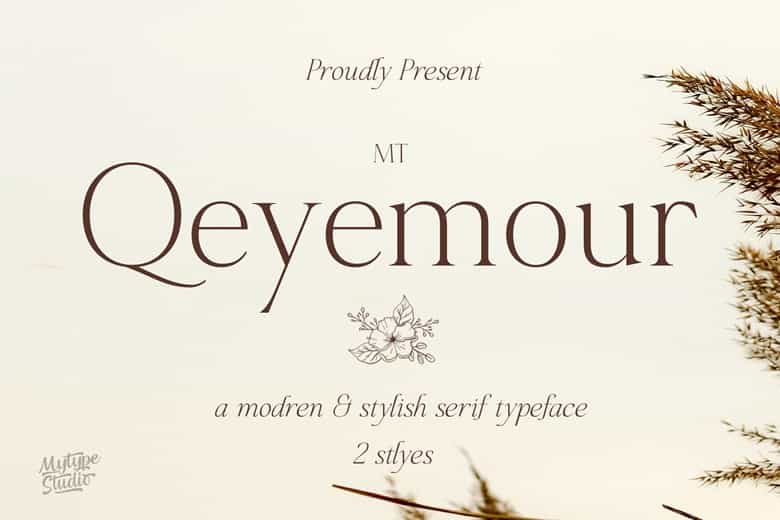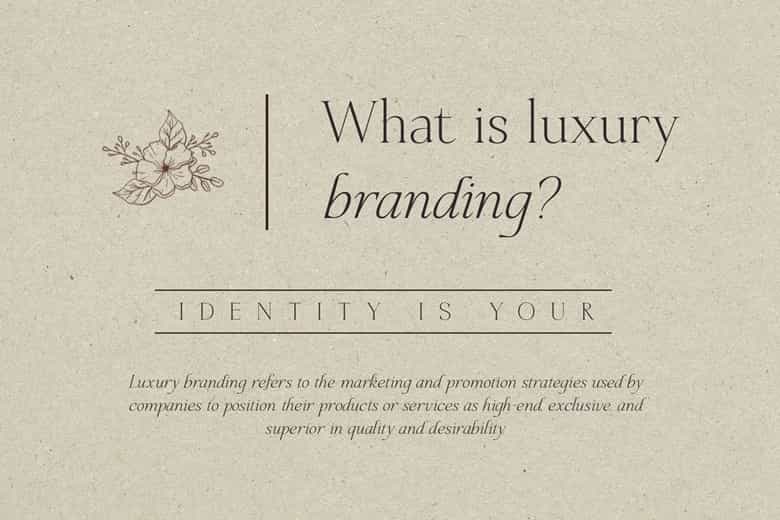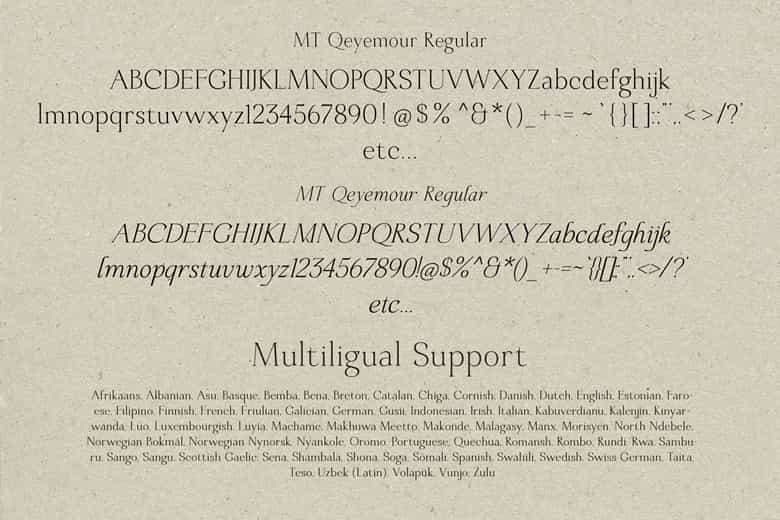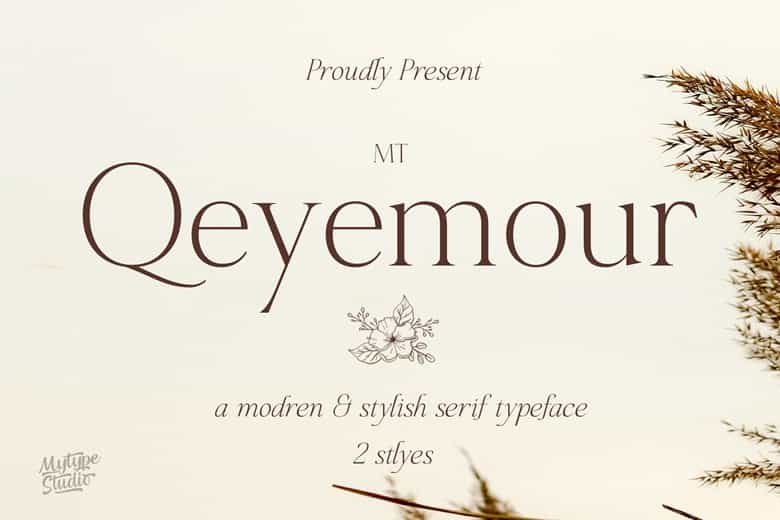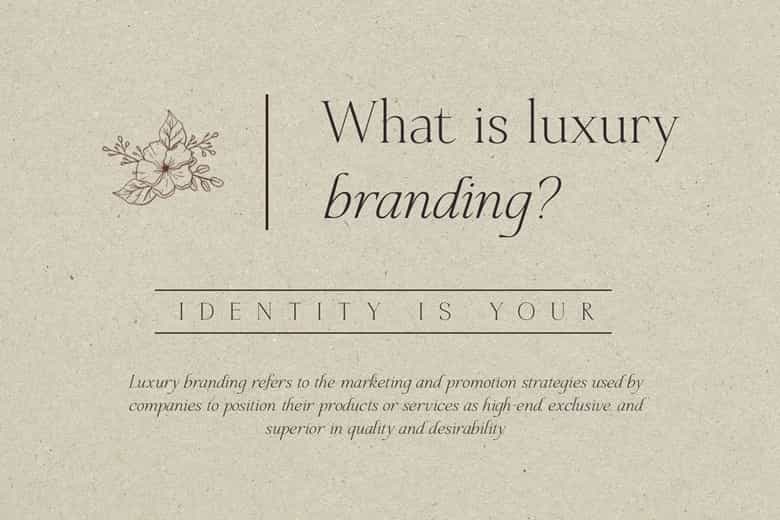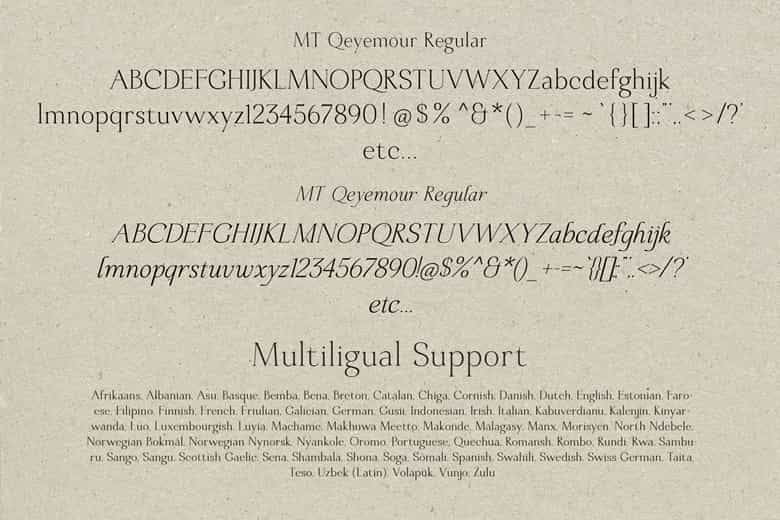
MT Qeyemour is a new, elegant serif typeface that looks perfect with its smooth lines and refined shapes.. Its professional look makes it suitable for use in any design work ranging from magazines to brand identities. Great for using to display a sense of professionalism and modernity in a number of different projects.